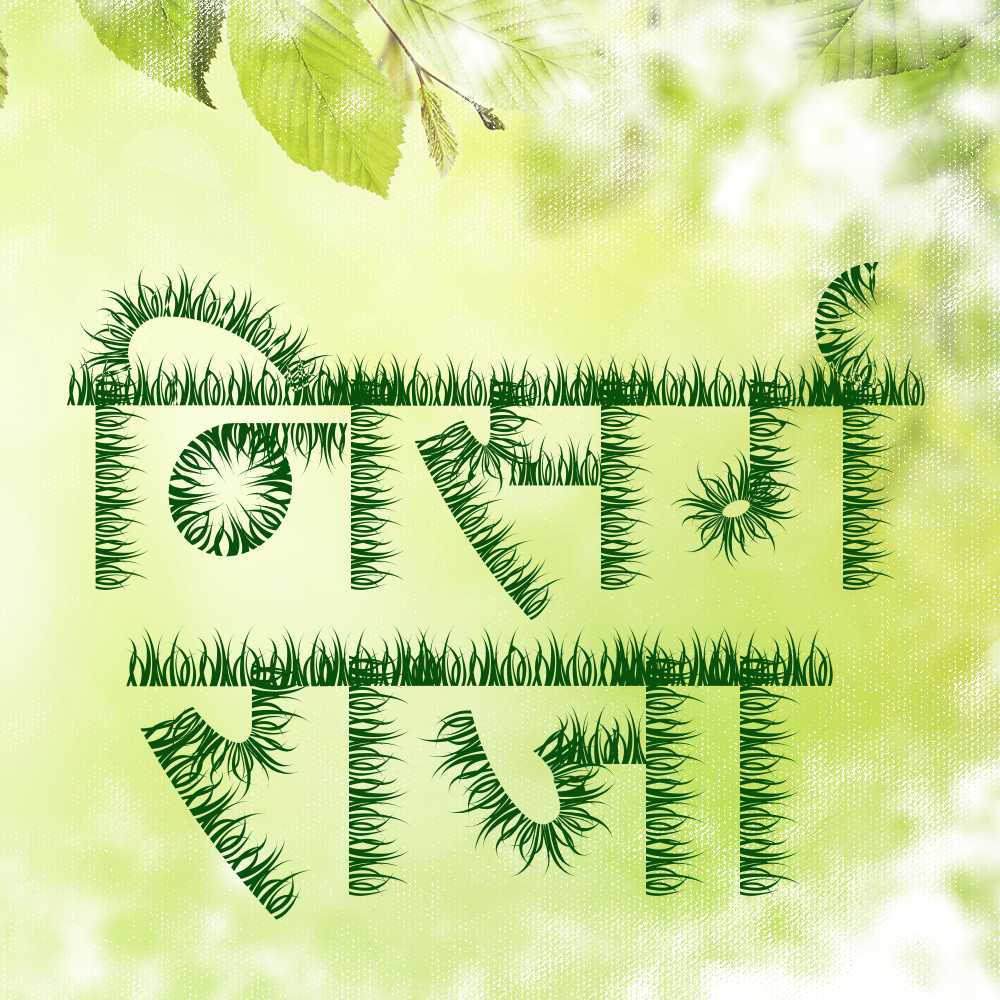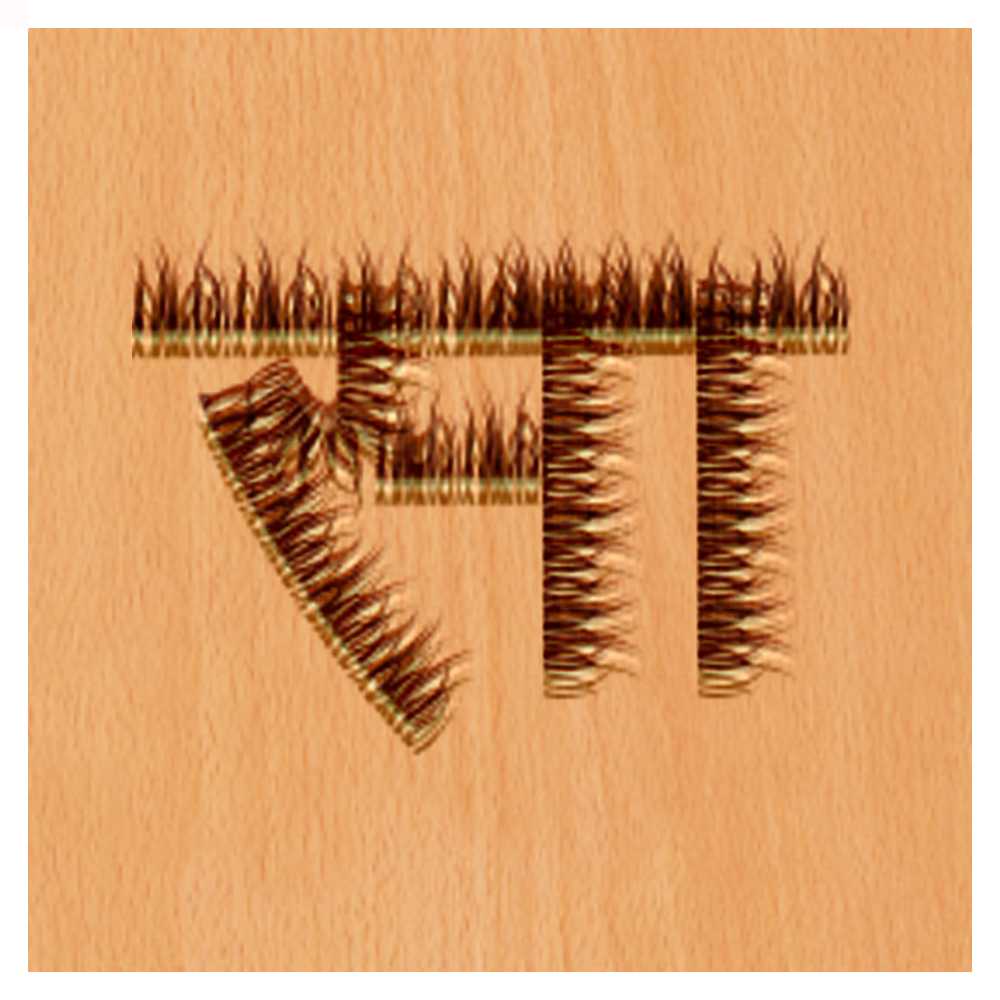
AMS Grass
Bring a touch of nature to your designs with AMS Grass, a decorative font that captures the essence of organic beauty. Whether you're searching for free AMS fonts or specifically looking for AMS Grass font download options, AMS Grass adds a refreshing and playful touch to your projects.
About AMS Grass Font
Bring a touch of nature to your designs with AMS Grass, a decorative font that captures the essence of organic beauty. Whether you're searching for free AMS fonts or specifically looking for AMS Grass font download options, AMS Grass adds a refreshing and playful touch to your projects. This decorative font combines elegance with functionality, making it perfect for various design applications.
AMS Grass is a professionally crafted decorative typeface that brings clarity and style to your projects. Designed with attention to detail, it supports hindi and marathi characters flawlessly.
Whether you're working on headers-titles, certificates-awards, greeting-cards, or other creative projects, AMS Grass delivers consistent performance across both digital and print media. This carefully designed typeface ensures readability and visual appeal in all your design work.
About AMS Grass Typography Style
AMS Grass is a professionally crafted decorative font that exemplifies modern Hindi typography design. This free font is perfect for designers seeking versatile design applications.
Available in 1 weight and supporting hindi, marathi scripts, AMS Grass offers exceptional versatility for both digital and print media. Whether you're working on headers-titles, certificates-awards, greeting-cards, this carefully designed typeface ensures consistent quality and professional results across all your typography projects.